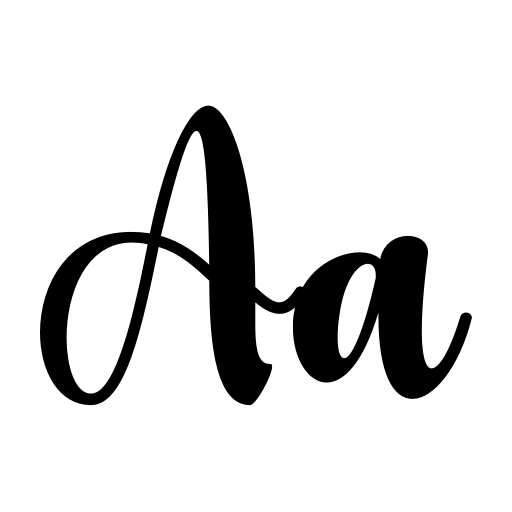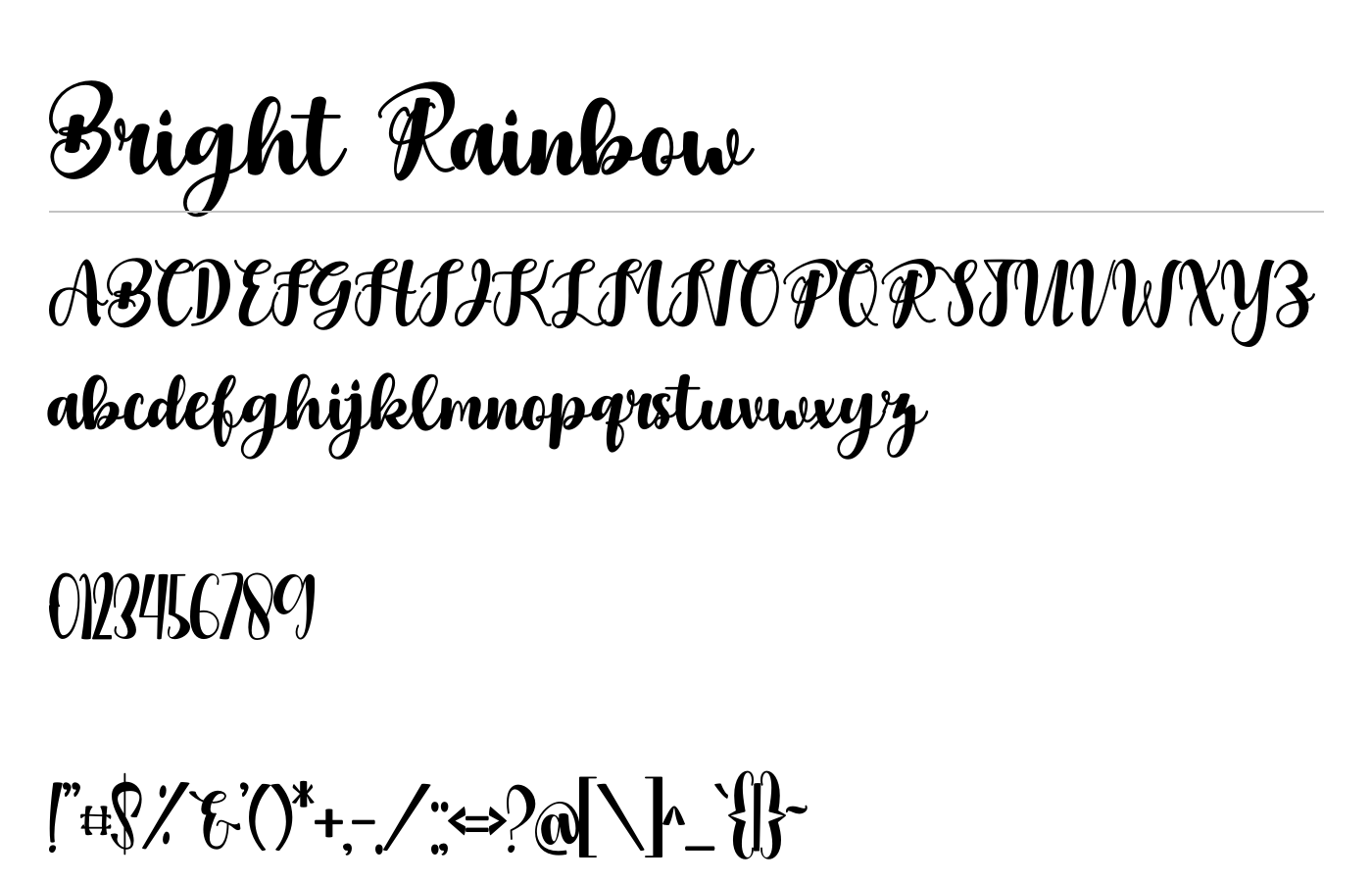
Bright Rainbow is a lively script font with a charming, handwritten feel that features medium weight strokes and playful, flowing curves. Its slightly condensed letterforms and elegant swashes give it a whimsical yet polished personality, making it perfect for creative branding, invitations, and eye-catching headlines where a friendly and stylish touch is desired. This font brings an inviting warmth and a sense of joyful creativity to any design.
Bright Rainbow Font
About Bright Rainbow Font
| Font family | Bright Rainbow Font |
| Designer | Arief Tri Sulistiyono |